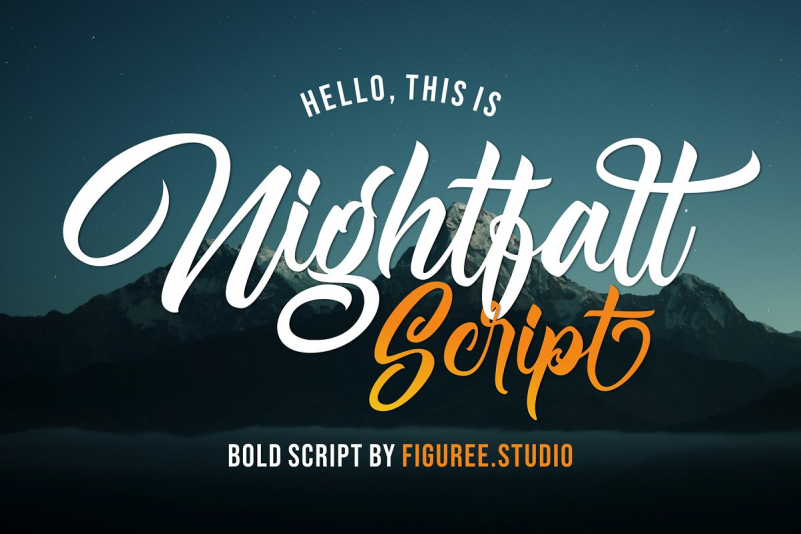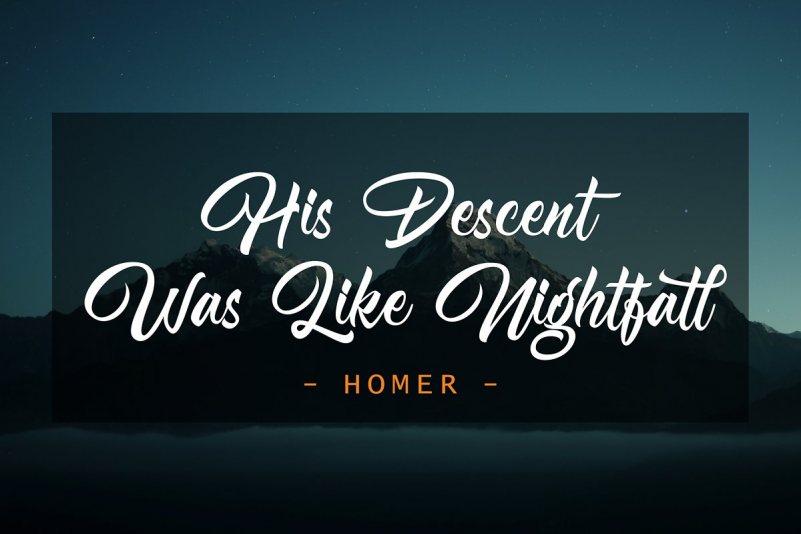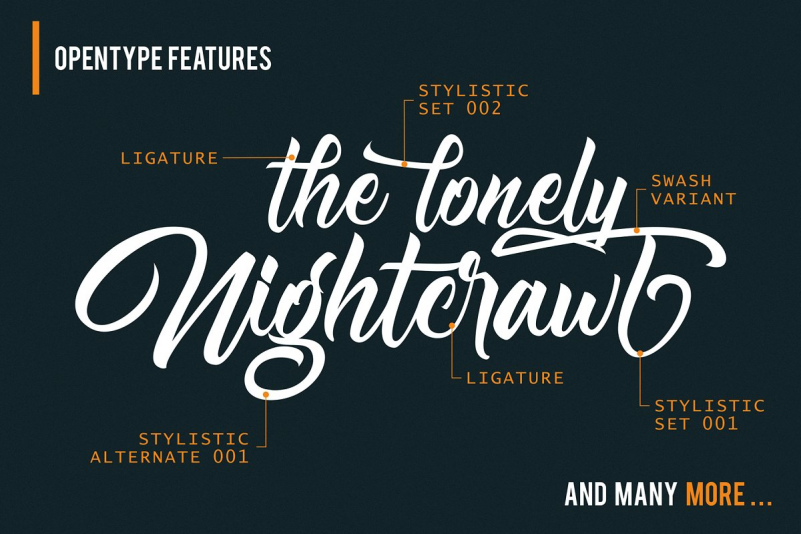
Nightfall Font
Introducing a new font called Nightfall inspired by urban script fonts with sharp and beautiful letters that create fonts that are modern, trendy and elegant. Nightfall came with open type features such stylistic alternates, stylistic sets & ligatures good for logotype, poster, badge, book cover, tshirt design, packaging and any more.